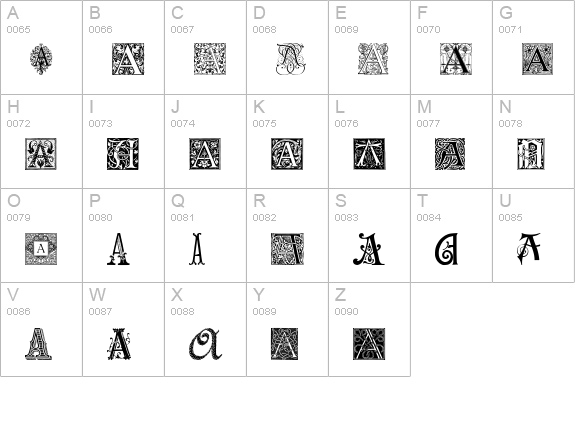
Ornamental Initials A Font Details
Ornamental Initials A font is a stunning display typeface that exudes elegance and sophistication. Featuring intricate and ornate details, this font is perfect for adding a touch of grandeur to your designs. The ornamental initials are beautifully crafted, making them a striking focal point in any project. The free Ornamental Initials A font is a versatile choice for various design applications, from invitations and greeting cards to posters and headlines. Its unique and decorative style sets it apart and adds a touch of luxury to any project. You can freely download the Ornamental Initials A font at FontsMarket.com and start using it to elevate your designs with its timeless charm and exquisite details. Embrace the beauty of this font and add a touch of opulence to your creations today.